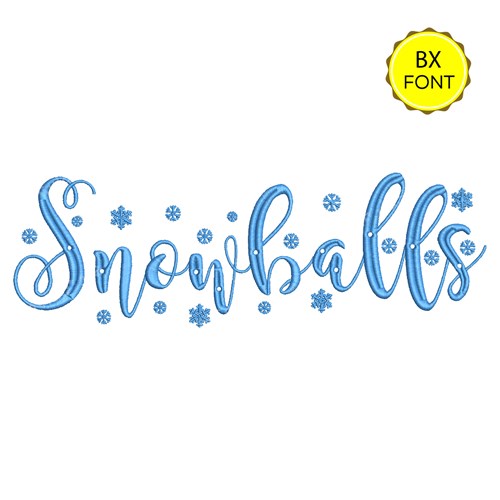
Maya Kreations is happy to present Snowballs Embrilliance machine embroidery font which has This flowing script machine embroidery font showcases the word 'Snowballs' adorned with small snowflakes in shades of blue. Ideal for holiday-themed projects on blankets or decorations. Available in BX font and Embrilliance formats. included. If you would like to view more embroidery fonts and alphabets please search our embroidery fonts page.